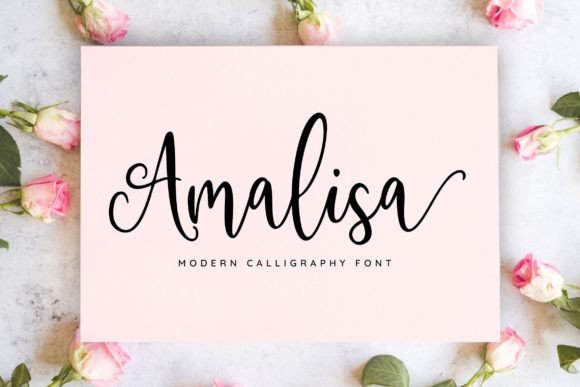
The Amalisa Font: A Modern Calligraphy Script for Elegant Designs
I’ll never forget the moment I stumbled upon the Amalisa font while working on a wedding invitation project. I had a tight deadline, and my client was being super picky about the design. I had tried a few fonts already, but none of them seemed to fit the elegant and simple vibe she was going for. That’s when I discovered Amalisa, and it instantly became the perfect fit. The elegant lines, the flowing script, and the modern feel of it all just clicked with my client’s vision.
An Honest Review of Amalisa Font
What I Love About Amalisa ✨
- ✅ Elegant and simple lines that scream sophistication
- ✅ Perfect for wedding invitations, calligraphy logos, and elegant websites
- ✅ Highly versatile and can be used for personalizing gifts, social media posts, and more
- ⚠️ Some users may find the font a bit too delicate for certain design projects
- ⚠️ Limited availability of certain characters, but this can be easily overcome with the PUA encoding
The Story Behind Amalisa Font
The Amalisa font was designed by a talented typographer who wanted to create a modern calligraphy script that was both elegant and simple. Inspired by the flowing lines of traditional calligraphy, the designer created a font that was perfect for wedding invitations, logos, and elegant websites. With its PUA encoding and OpenType features, Amalisa has become a popular choice among designers and crafters.
Q: Is Amalisa suitable for body text?
A: While Amalisa is a beautiful font, it’s best suited for headlines, titles, and short paragraphs. It’s not recommended for body text, as it may be too delicate for long blocks of text.